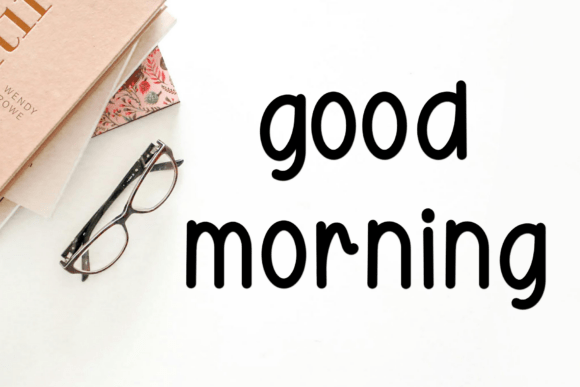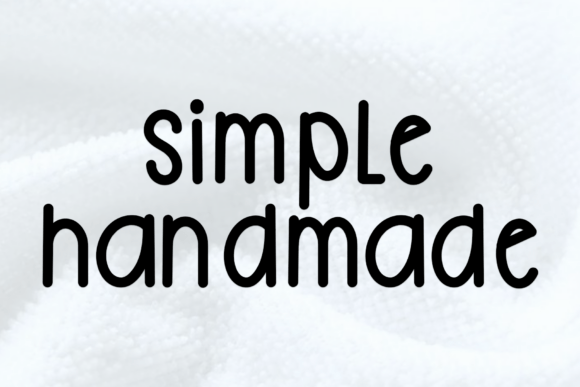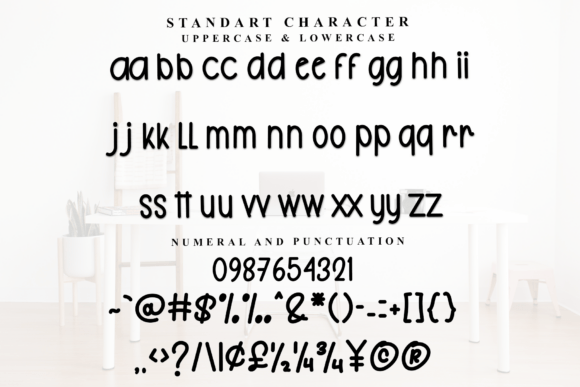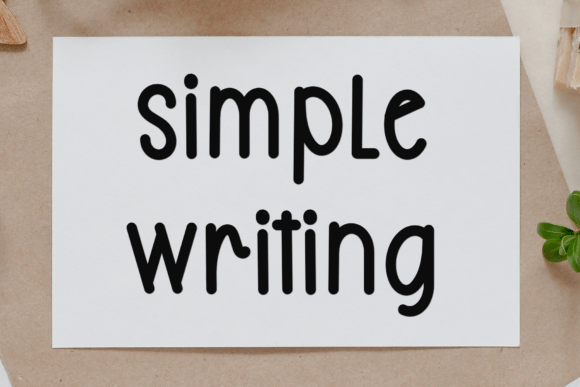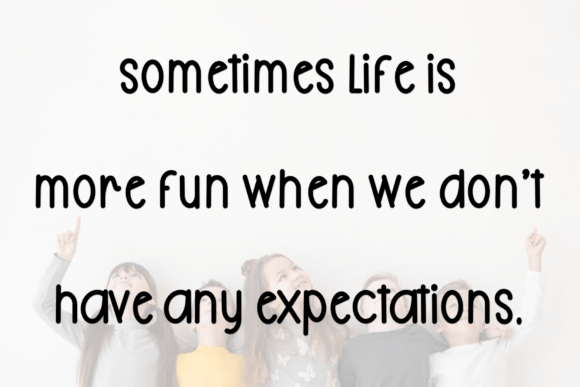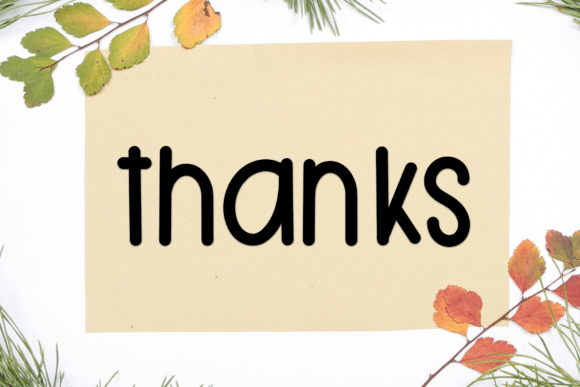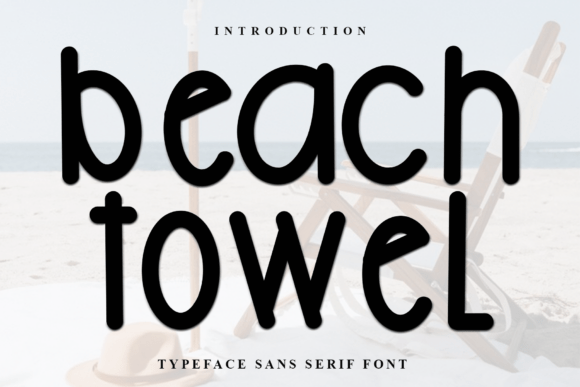
Introducing Beach Towel Font: The Ultimate Sans Serif for Stunning Designs
Are you tired of using the same old fonts for your designs? Look no further! Beach Towel Font is a lovely and timeless sans serif font that is sure to elevate your creations to the next level. With its unique and beautiful touch, this font is perfect for creating eye-catching logos, branding, and quotes that will leave a lasting impression.
The Perfect Choice for Designers and Crafters
Beach Towel Font is a versatile and stylish font that is suitable for a wide range of design projects. Whether you’re a professional designer or a crafter, this font is easy to use and can add a touch of elegance to any design. From logos and branding to quotes and social media graphics, Beach Towel Font is the perfect choice for anyone looking to create stunning visuals.
What Makes Beach Towel Font So Special?
So, what sets Beach Towel Font apart from other fonts? For starters, every letter has a unique and beautiful touch that will make your design come alive. The font is carefully crafted to provide a perfect balance of style and readability, making it perfect for use in a variety of design projects. Additionally, Beach Towel Font is a sans serif font, which means it’s clean, modern, and easy to read.
With Beach Towel Font, the design possibilities are endless! Here are just a few ideas to get you started:
- Create a stunning logo for your business or brand
- Design eye-catching social media graphics and quotes
- Develop a cohesive brand identity with custom typography
- Add a touch of elegance to your website or blog
- Use it for crafting, such as making custom signs, cards, and invitations
Why Choose Beach Towel Font?
There are many fonts to choose from, but Beach Towel Font stands out from the rest. Here are just a few reasons why:
- Unique and beautiful lettering that will make your design stand out
- Timeless and versatile design that will never go out of style
Tips for Using Beach Towel Font
Here are a few tips for getting the most out of Beach Towel Font:
- Use it in combination with other fonts to create a unique and eye-catching design
- Don’t be afraid to get creative and try out new and innovative design ideas
- Use it consistently across all your design projects to create a cohesive brand identity
In conclusion, Beach Towel Font is a stunning sans serif font that is perfect for designers and crafters looking to create eye-catching logos, branding, and quotes. With its unique and beautiful lettering, timeless design, and versatility, this font is sure to become a favorite in your design arsenal. So why wait? Download Beach Towel Font today and start creating stunning designs that will leave a lasting impression!